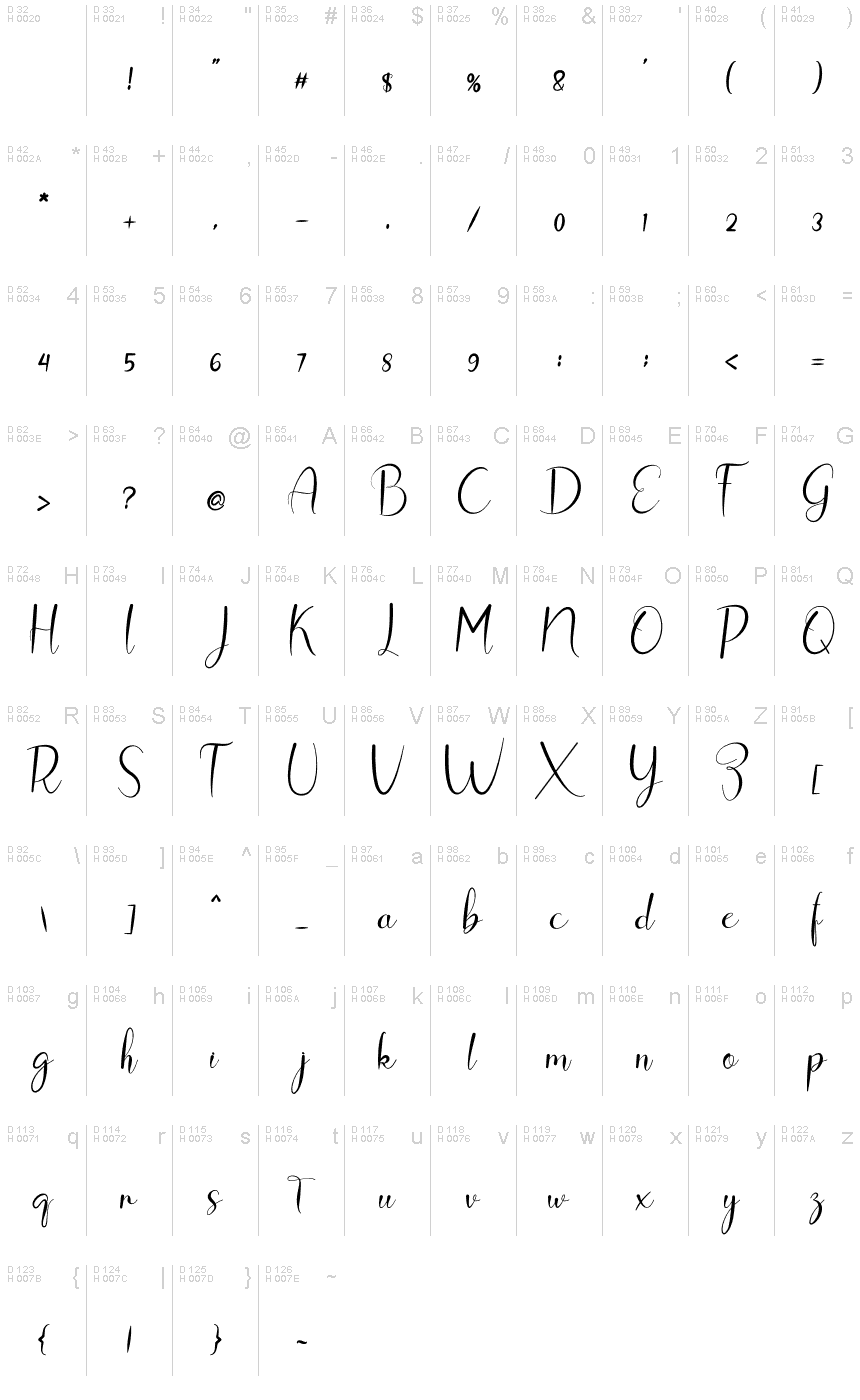
Ghost Ship
Ghost Ship is a whimsical handwritten font designed by Fahmi Hayat. Its playful curves and light weight make it ideal for projects that require a touch of whimsy, such as children's books, posters, or greeting cards. With its semi-condensed width, Ghost Ship is also suitable for designs that need to fit more text into a limited space without sacrificing legibility. Let your imagination set sail with Ghost Ship – perfect for adding some character to your design projects!